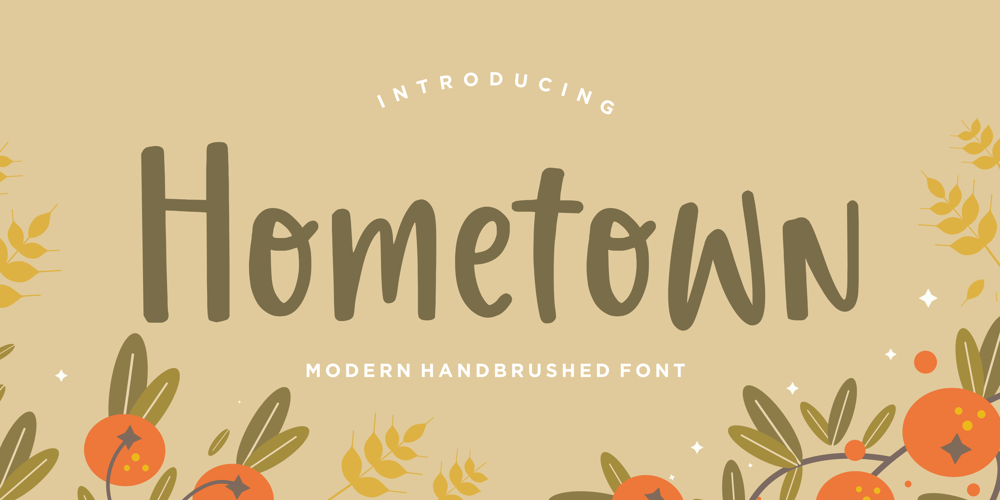
Hometown Font Family was designed by Restu Angga and published by Balpirick. Hometown contains 1 styles and family package options. Hometown is a Modern Handbrushed Font.Hometown is a bold and fun handwritten font. It’s playfulness make it great for creative projects, be it inspirational wall posters or for communicating your brand.Hometown also multilingual support.Enjoy the font, feel free to comment or feedback, send me PM or email.Thank you!